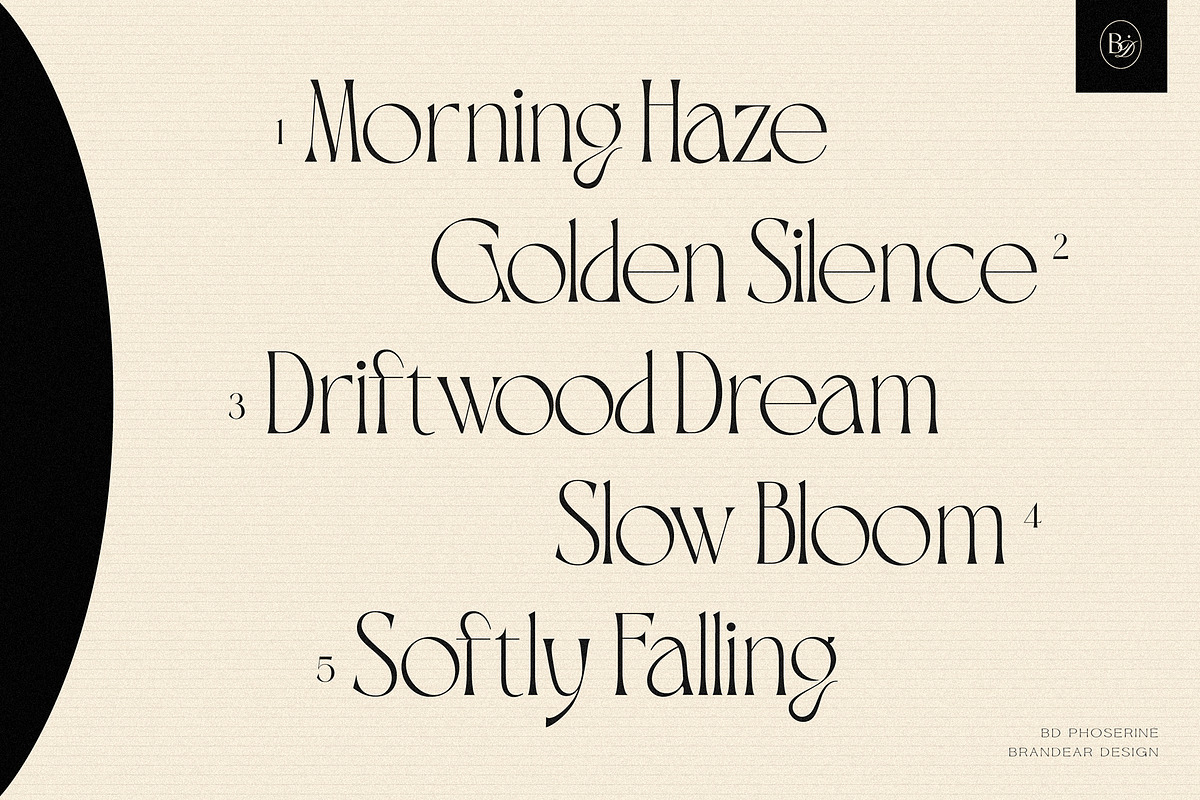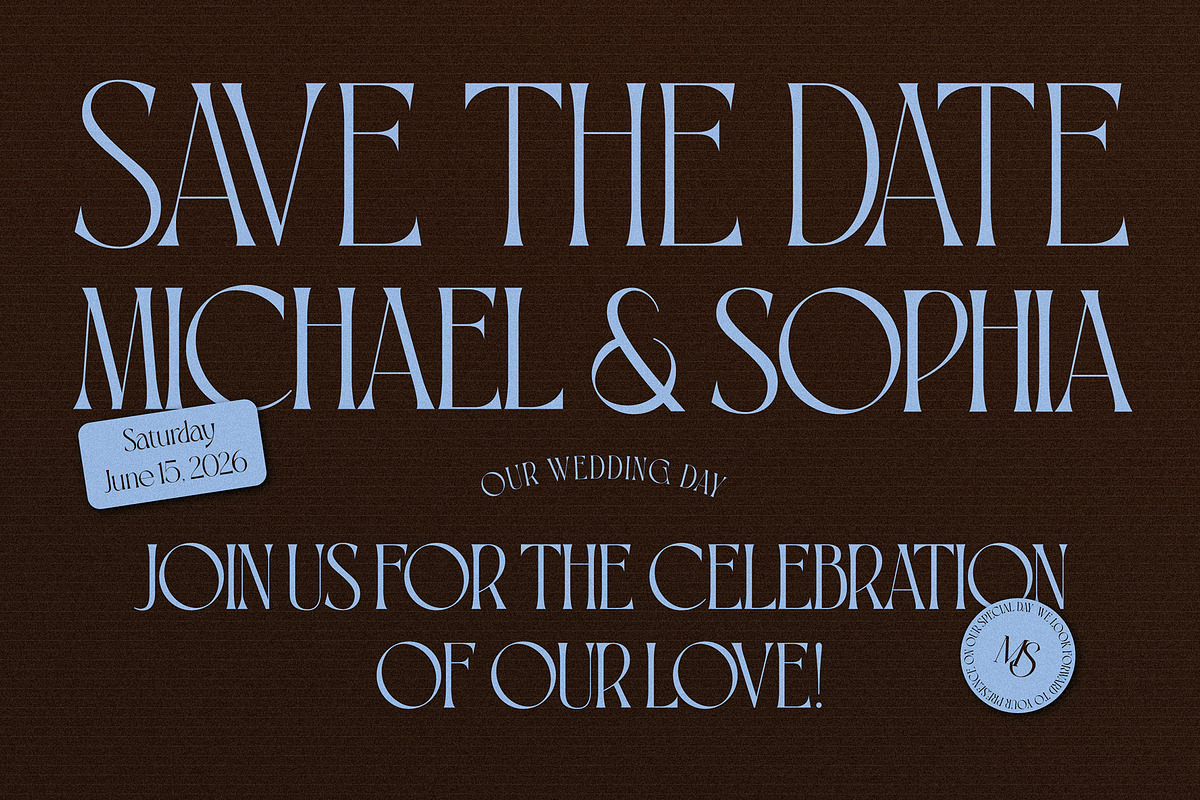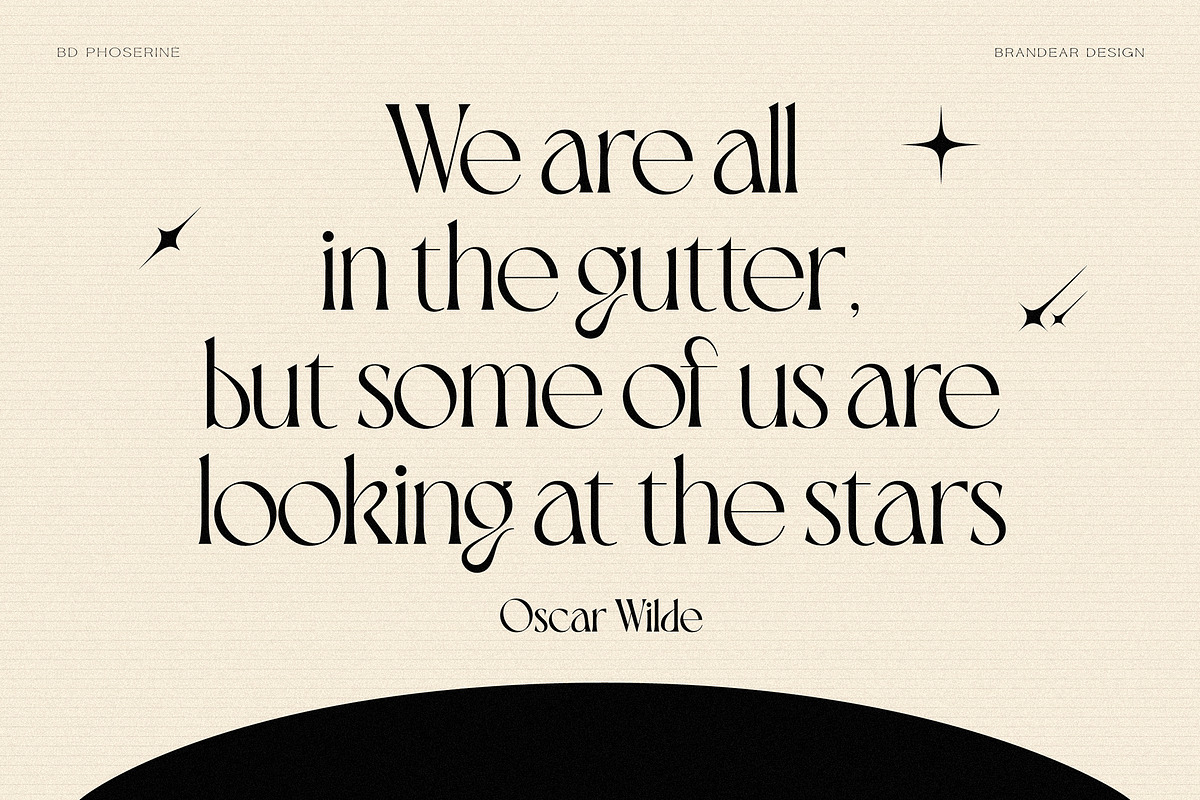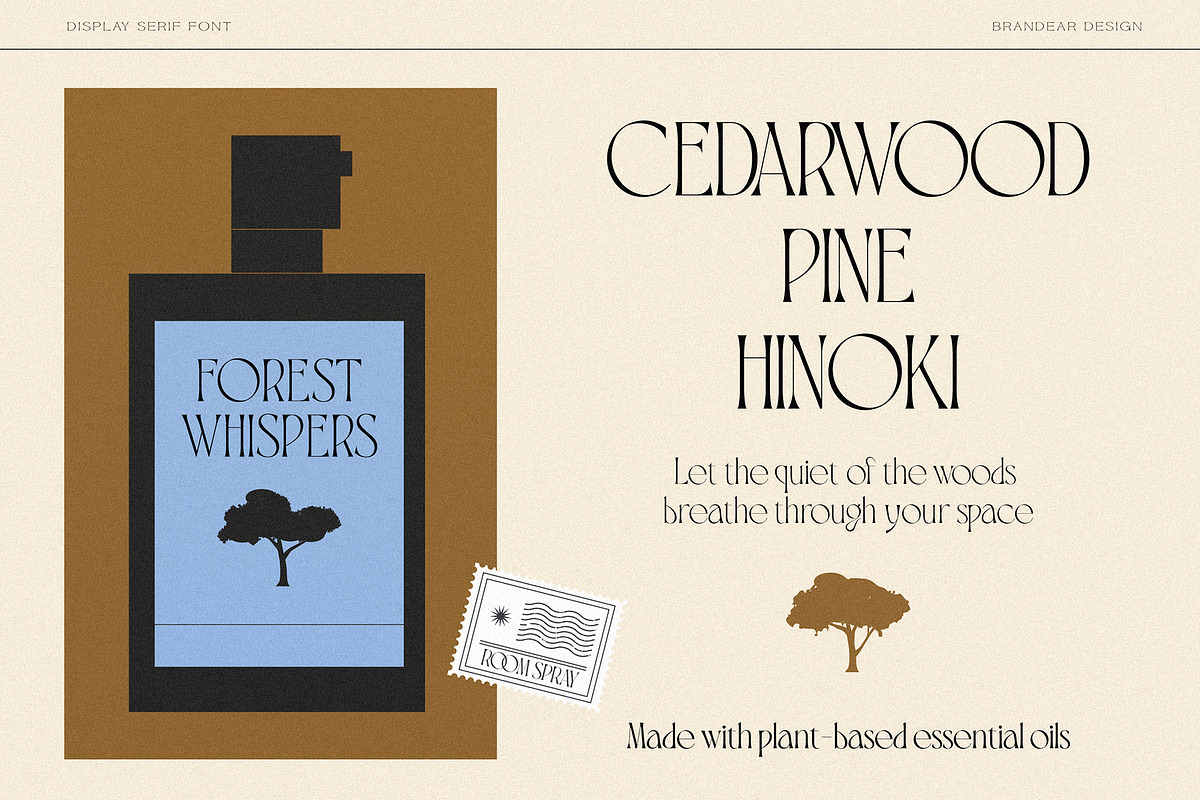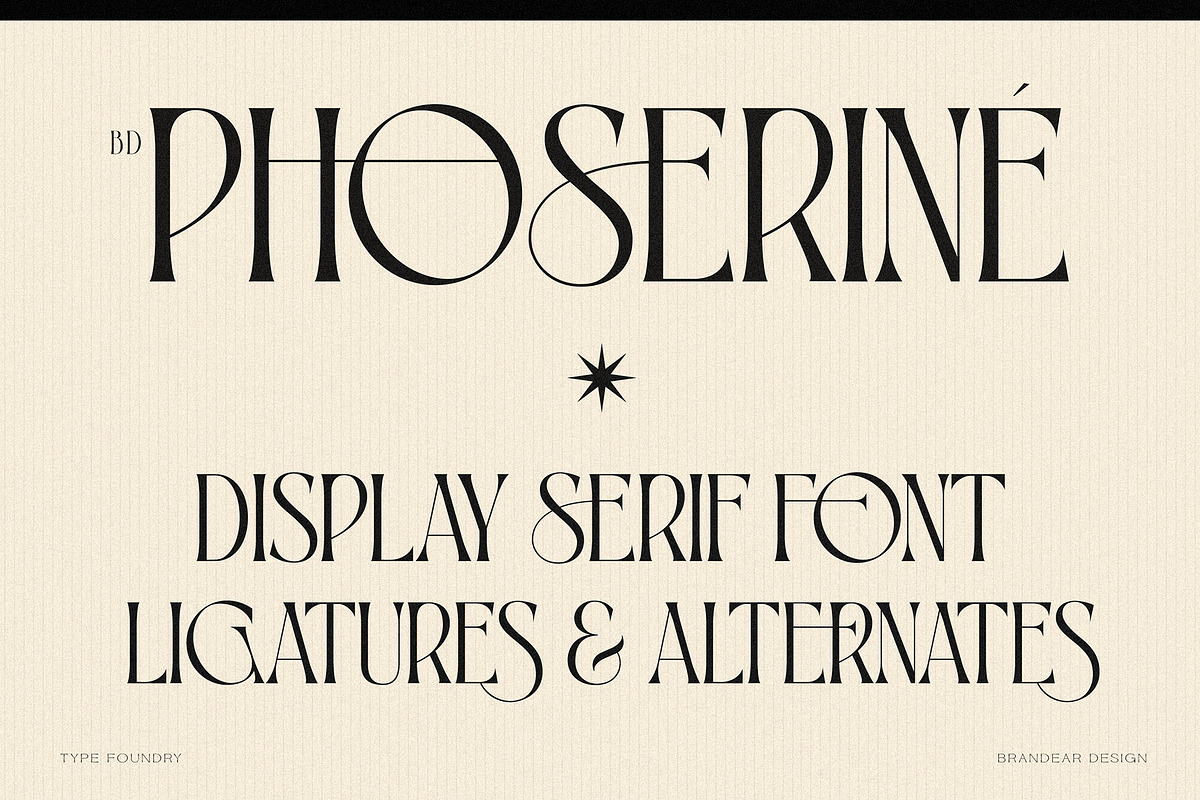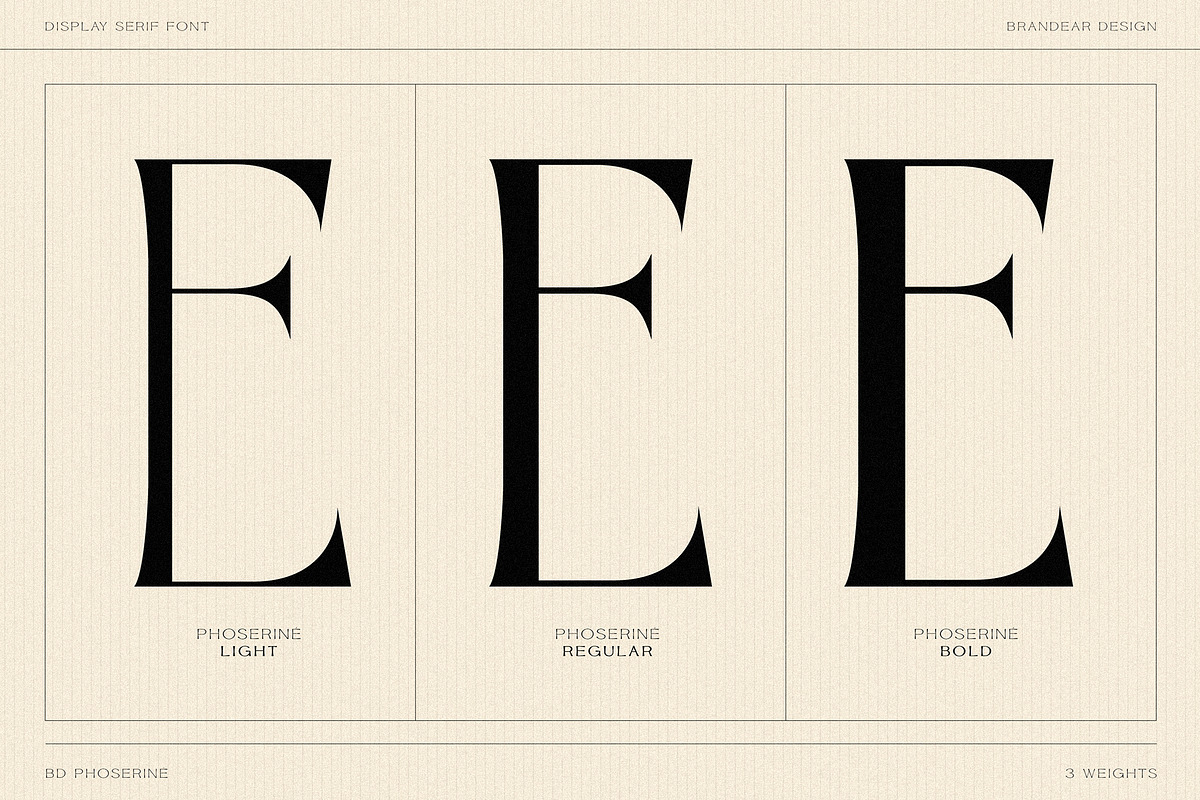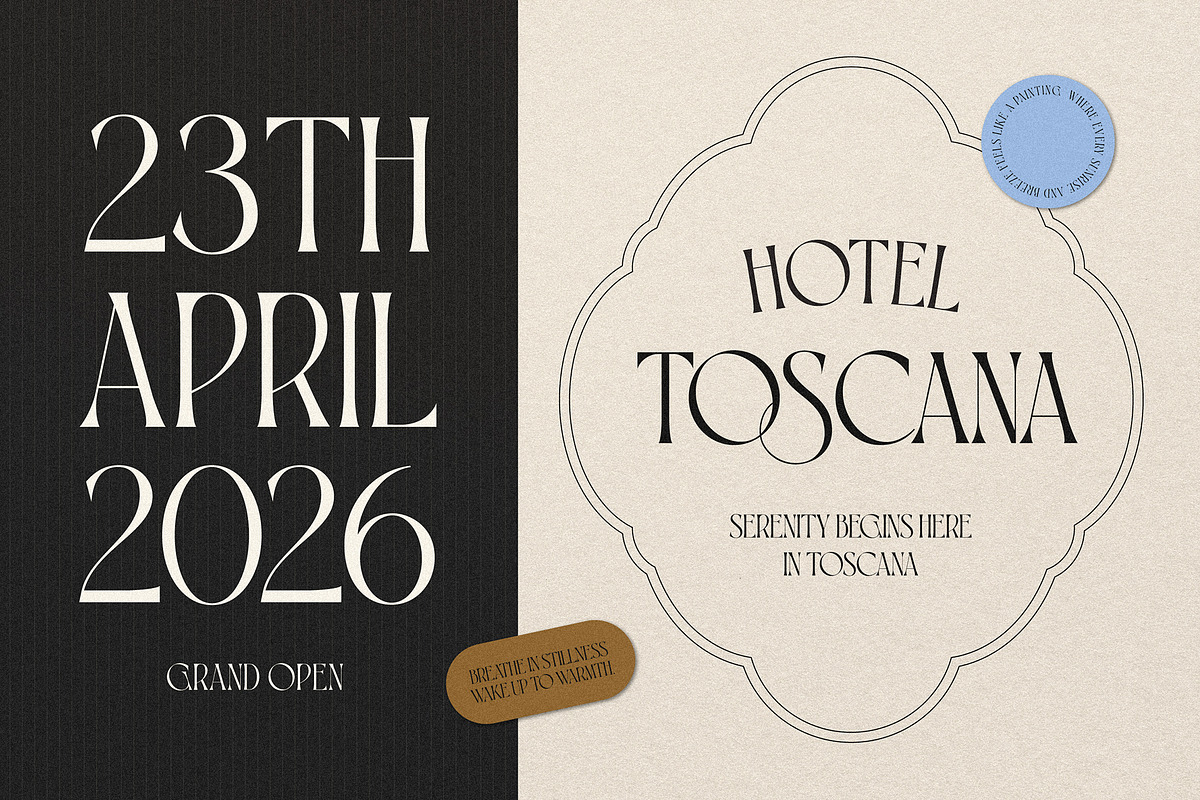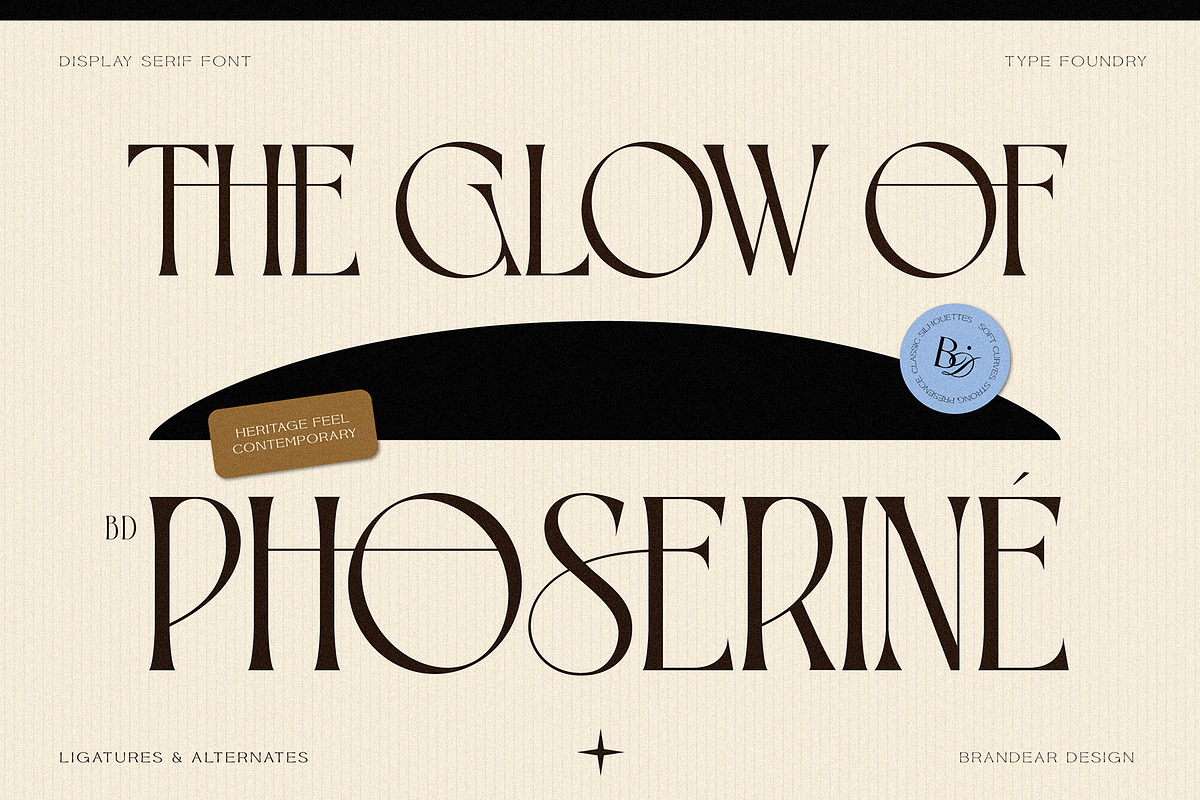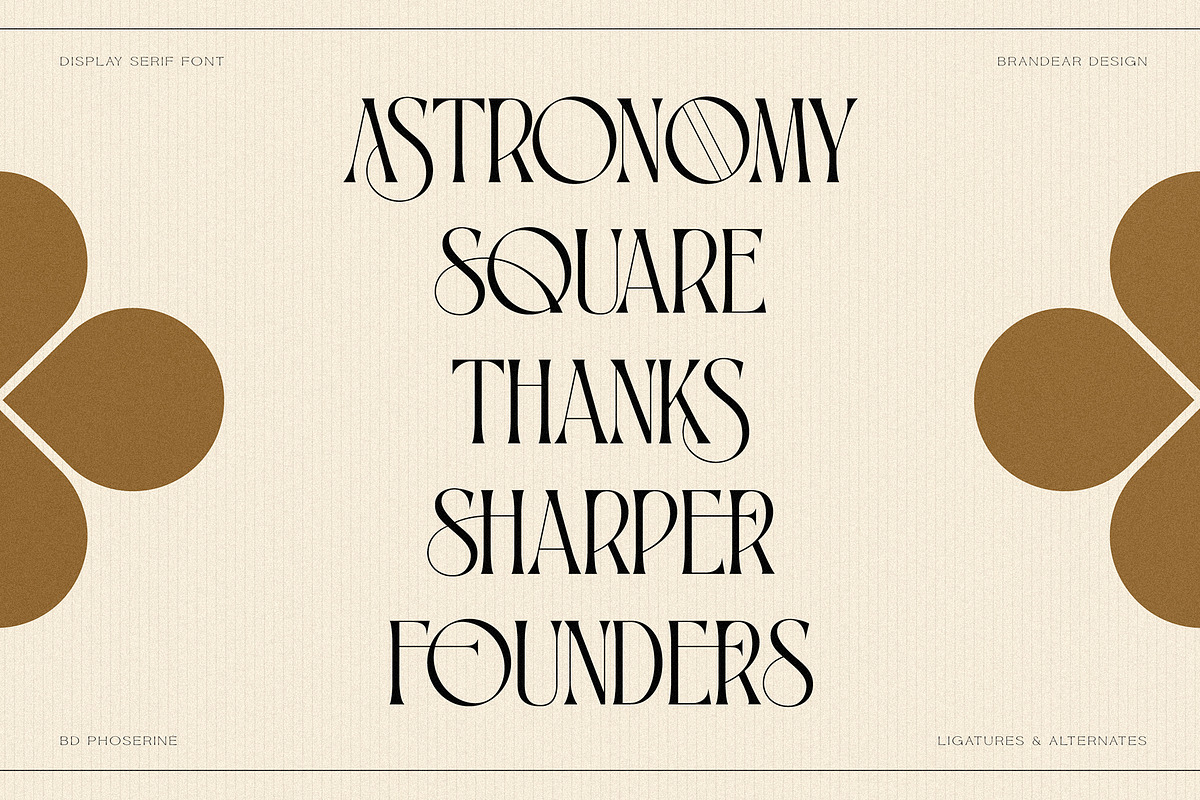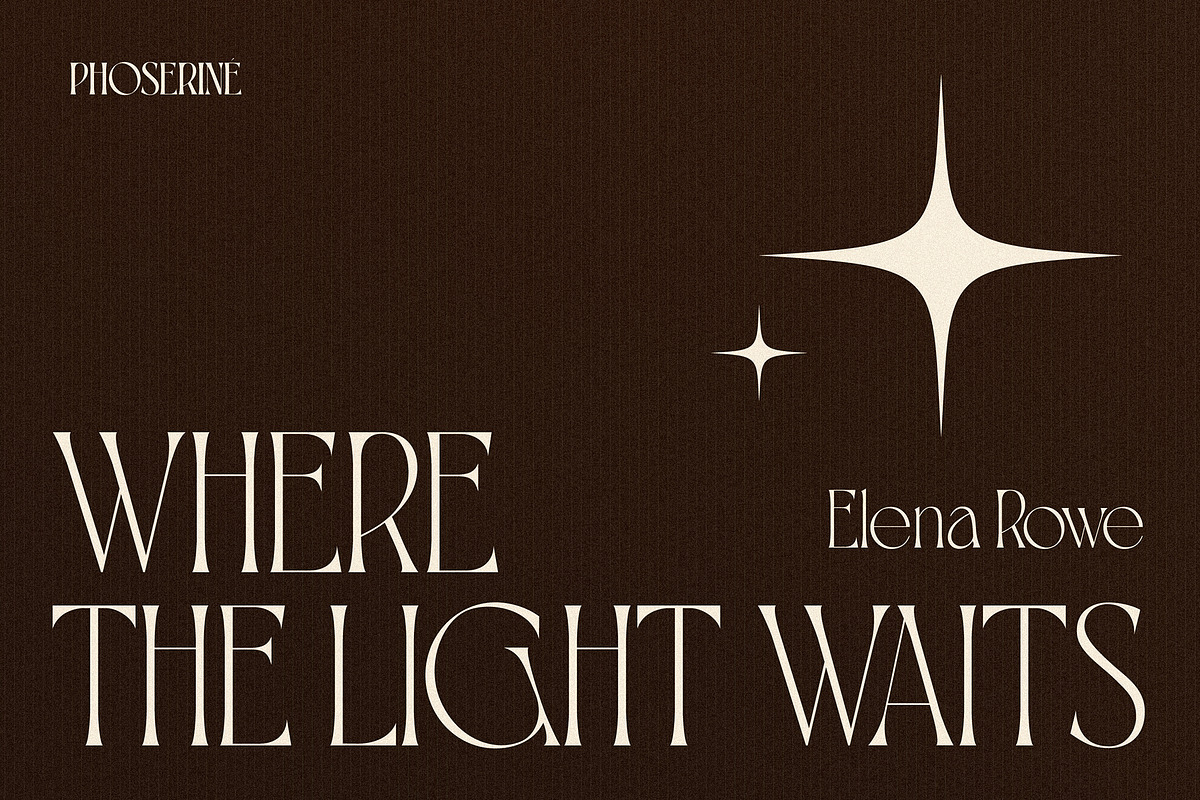
BD PHOSERINÉ | Display Serif
✴︎ PHOSERINÉ is a sophisticated display serif font crafted for visual impact and refined style. With its graceful curves, extended letterforms, and unique design details, PHOSERINÉ brings a touch of Art Deco elegance and modern flair to any project.
This typeface features:
Stylized ligatures & alternates that add an expressive and decorative edge to your typography.
Three versatile weights, allowing for flexibility across editorial layouts, branding, packaging, and high-end digital content.
Whether you're designing for fashion, art, or luxury, PHOSERINÉ makes a bold, elegant statement.